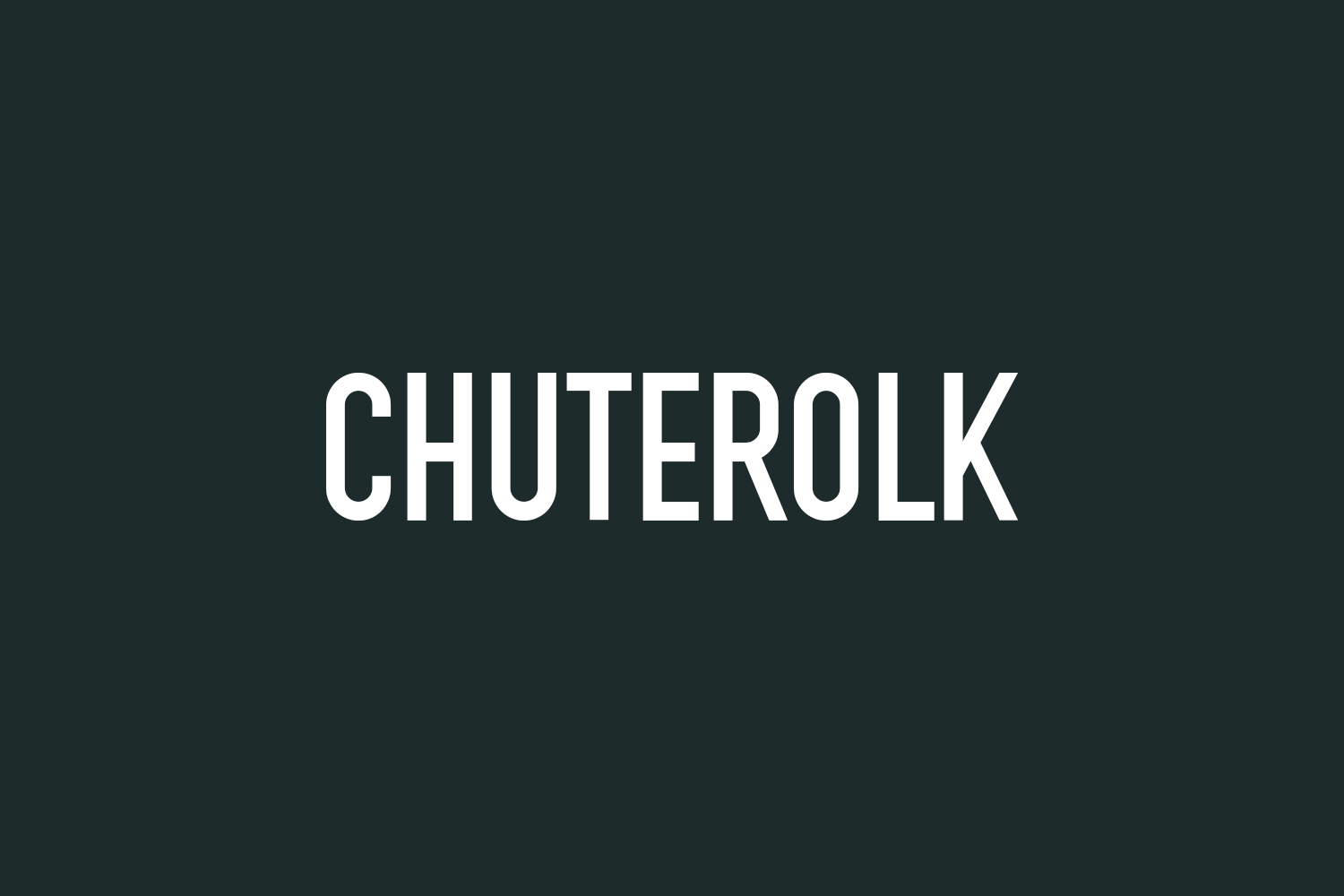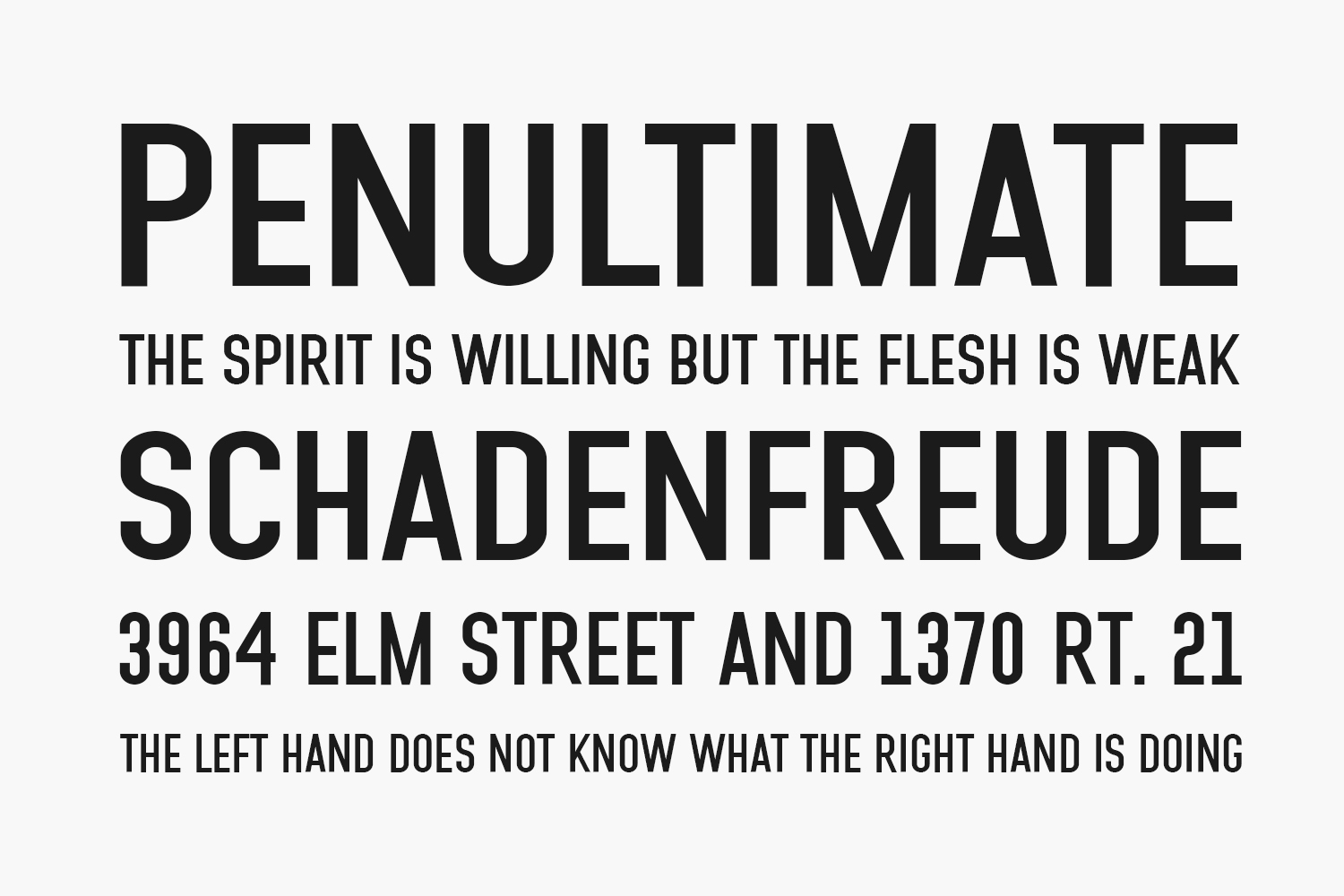
Chuterolk Free Font Family is a cute display font. It embodies playfulness and authenticity and is perfect for adding a sophisticated touch to your projects. Add this chunky lettered font to your designs and notice how it makes them come alive. Chuterolk Free Font Family was designed by Namara Creative Studio and is free for personal use only. Please purchase the full version for commercial use.